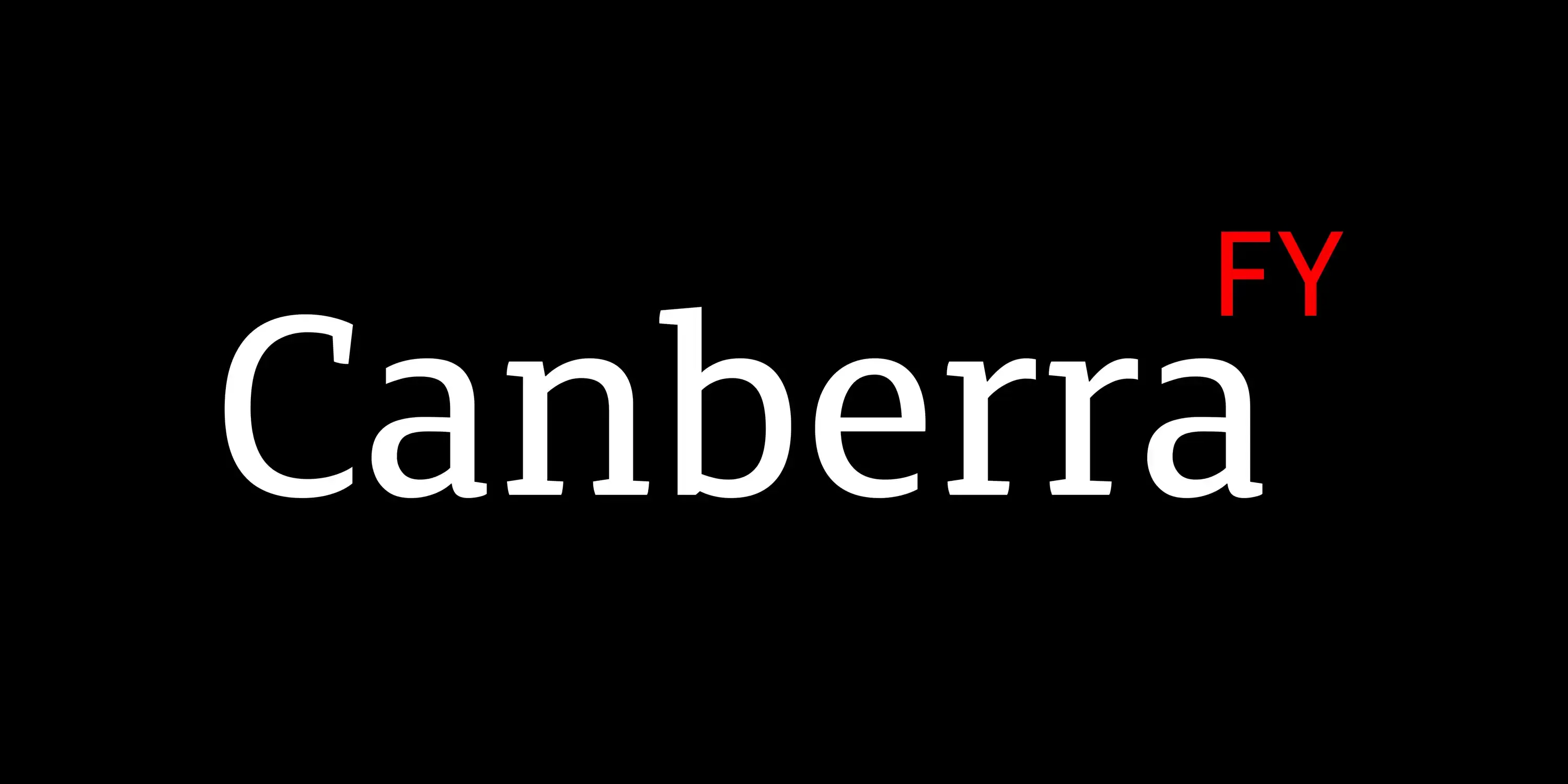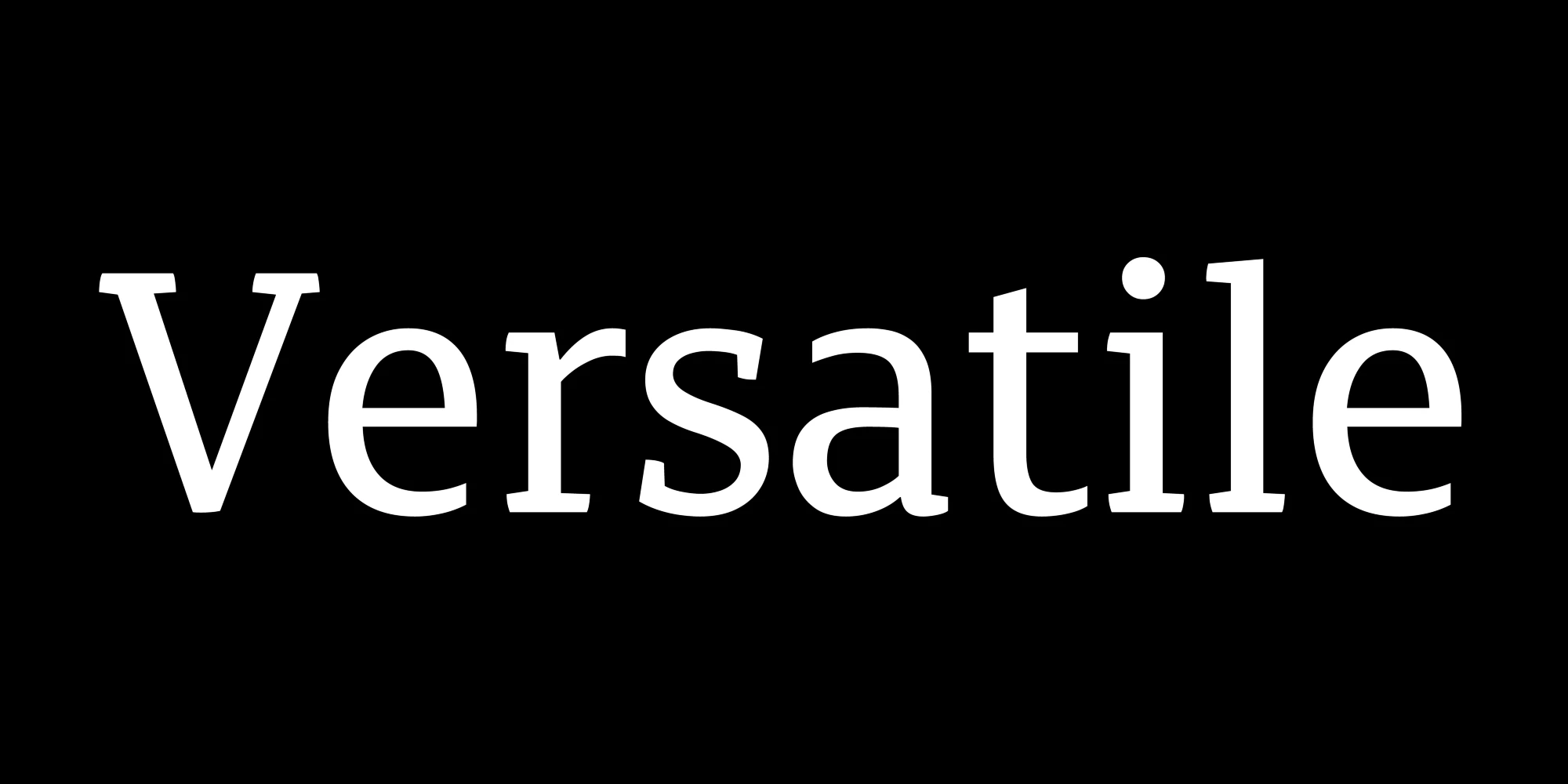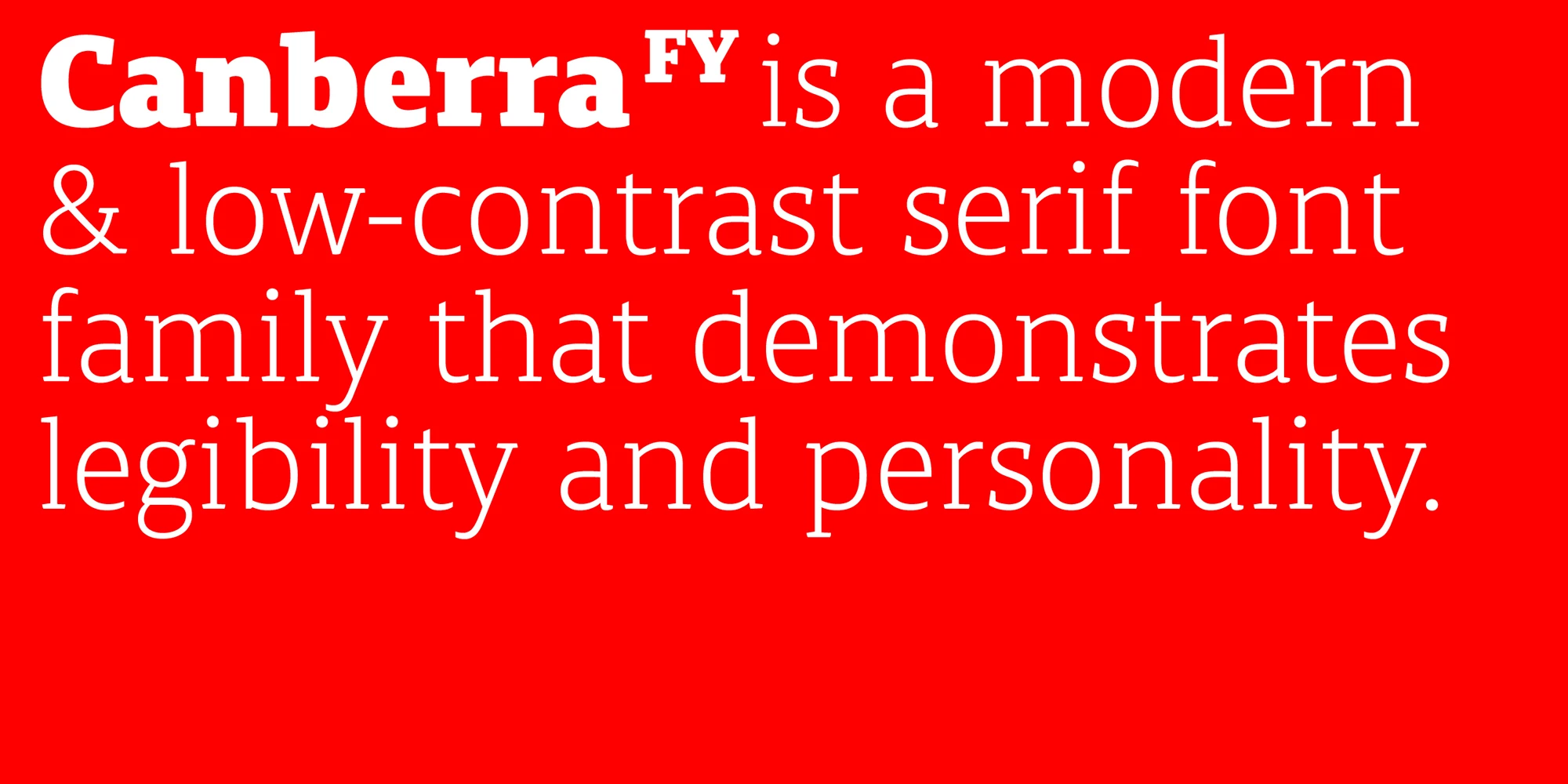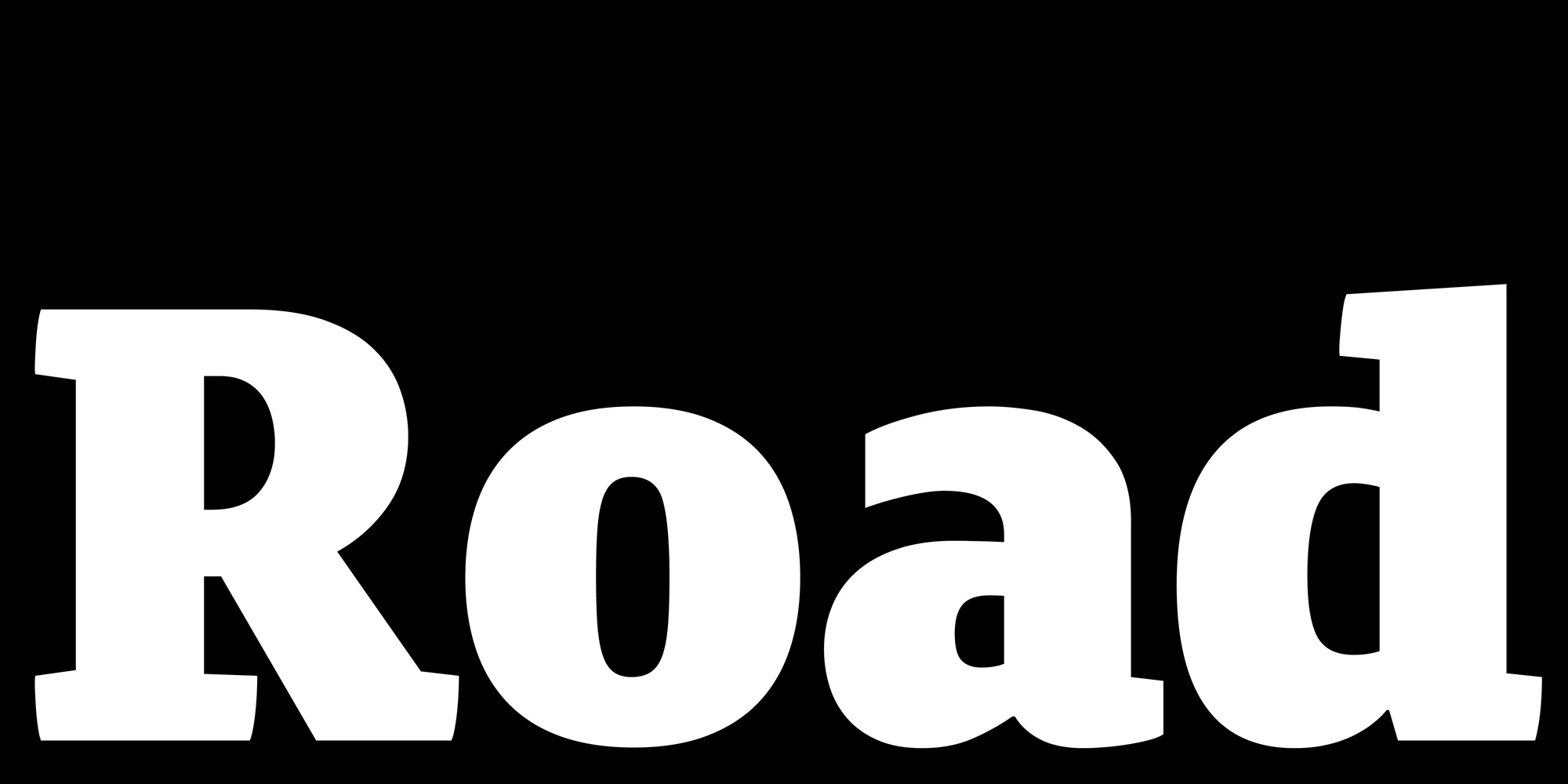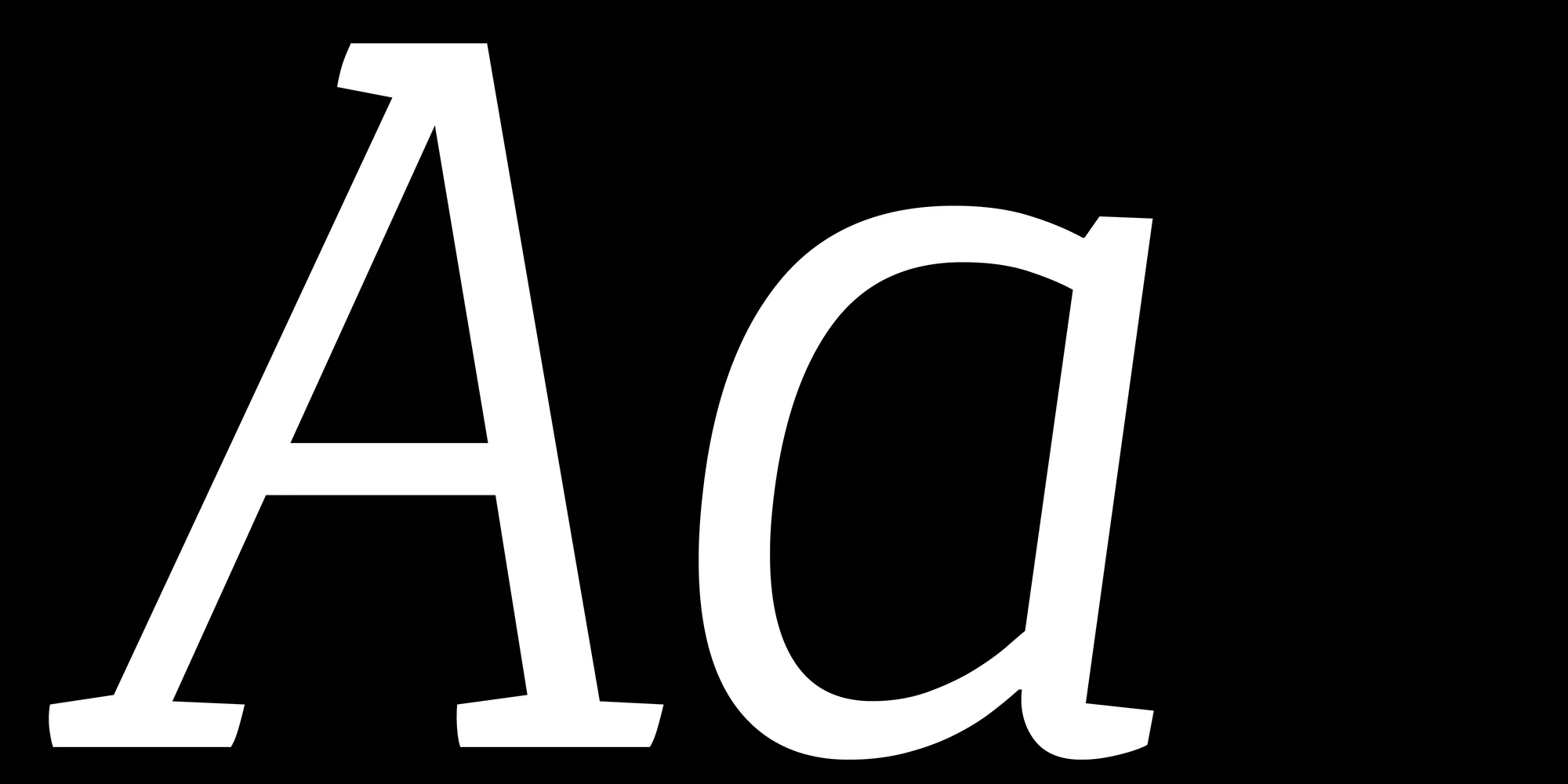
Canberra Fonts
Canberra FY is a contemporary low-contrast serif family combining legibility with personality. Asymmetric, short serifs give it a versatile and friendly look, while rounded alternates for letters like a, e, g, v, w, and y allow more casual settings. Highly usable in book style at small sizes, its bold and black weights work well for headings, making it suitable for editorial use and hierarchical typography. With six weights and matching italics, it is also offered as a variable font.
Features
OpenType Features
- Common Ligatures
- Fractions
- Lining Numerals
- Old Style Numerals
- Ordinal Numerals
- Proportional Numerals
- Slashed Zero
- Stylistic Sets
- Subscript
- Superscript
- Tabular Numerals